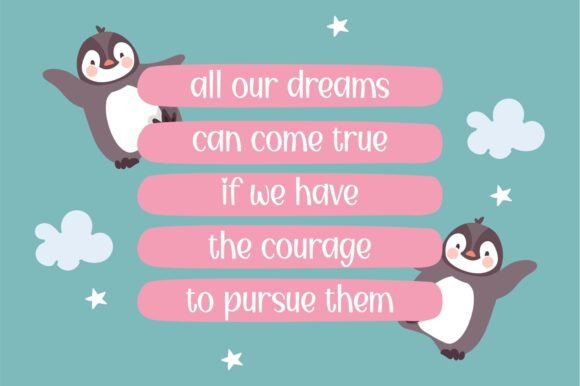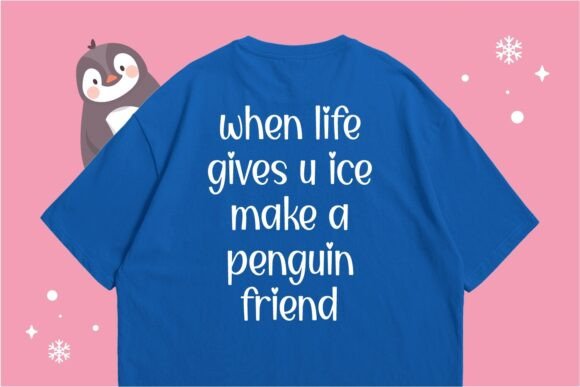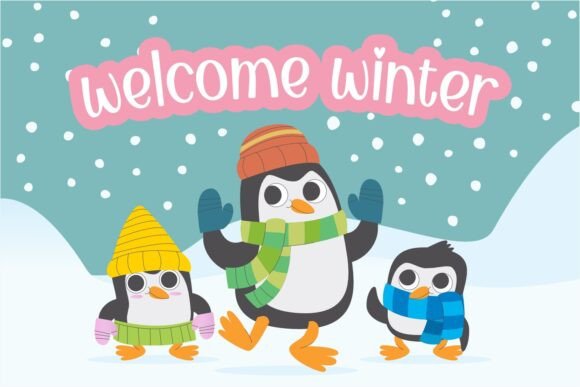
Introduction to Magical Penguin Font
Have you ever been working on a creative project, and you just can’t seem to find the perfect font to bring it all together? I know I have. That’s why I’m so excited to introduce you to the Magical Penguin Font – a delightful and whimsical font that’s sure to add a sprinkle of magic to your designs.
This charming font combines rounded letters with heart accents, creating a friendly and inviting atmosphere that’s perfect for kid-friendly projects, holiday greetings, and fun invitations. With its light, joyful strokes, the Magical Penguin Font is sure to bring warmth to even the chilliest of designs.
As a valuable resource for designers, the Magical Penguin Font offers high-quality typography that’s perfect for a wide range of creative projects, from winter-themed designs to any project that needs a bit of whimsy. And the best part? It’s available for free download, making it an excellent addition to any design arsenal.
Key Features of Magical Penguin Font
- Unique and Whimsical Design: The Magical Penguin Font is a creative project that adds a touch of magic to any design, making it perfect for various applications.
- Easy Customization: The font’s unique design elements can be easily customized to fit the specific needs of your creative project, making it a versatile design resource.
Honest Review: Magical Penguin Font
I recently had the opportunity to work with the Magical Penguin Font on a creative project, and I must say I was impressed. The font is a great addition to any designer’s toolkit, offering a unique and playful feel that’s perfect for projects that need a touch of whimsy.
One of the standout features of the Magical Penguin Font is its high quality design, which is evident in its crisp lines and smooth curves. The font is also incredibly versatile, making it suitable for a wide range of creative projects, from branding and marketing materials to digital art and graphics.
Here are some of the things I liked about the Magical Penguin Font:
- ✨ Beautifully designed characters that are perfect for creative projects
- ✨ High quality design that looks great on both light and dark backgrounds
However, I did encounter some limitations while working with the Magical Penguin Font:
- ⚠️ The font only includes a limited set of characters, which may not be sufficient for more complex projects
- ⚠️ The font doesn’t support transparent background, which can make it difficult to use in certain design applications
Overall, I was pleased with the Magical Penguin Font and would definitely recommend it to other designers. While it may have some limitations, its unique design and high quality make it a valuable addition to any design library.
Getting the Most Out of Magical Penguin Font
To get the most out of the Magical Penguin Font, use it in combination with other design elements, such as images and graphics. Experiment with different font sizes and colors to create visually appealing designs. The Magical Penguin Font is a versatile design resource that can be used in a variety of creative projects.